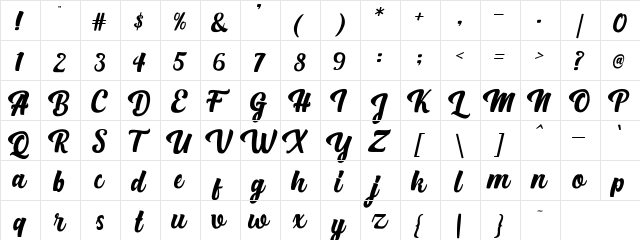
Bright Script Clean Regular
| Foundry | Debut Studio |
| Designer | Debut Studio |
Design Context for Bright Script Clean Typeface
Bright Script Clean flows with the natural rhythm of handwritten lettering, making it ideal for designs that call for warmth and personal expression.
Font Pairing: Combine Bright Script Clean with a simple geometric sans for maximum contrast — the tension between flowing curves and clean structure is a classic typographic pairing.
Pro Tip: Use Bright Script Clean for short runs of text — names, titles, or taglines. Extended body copy in script faces tires the eye quickly.